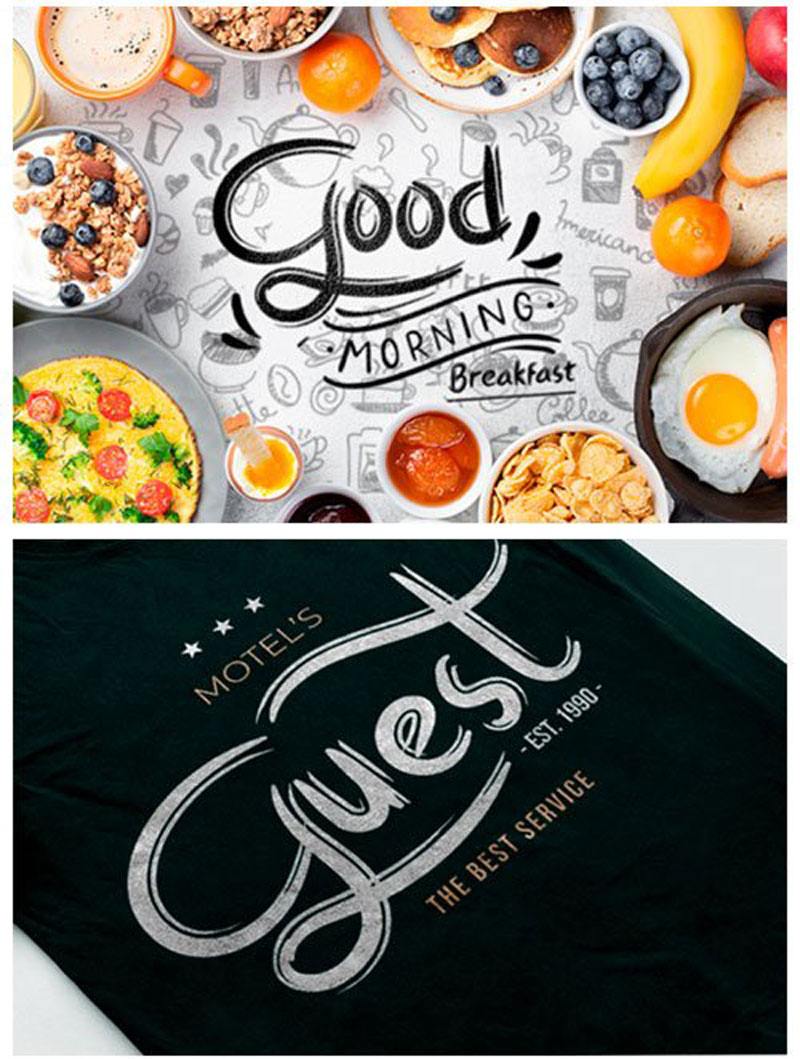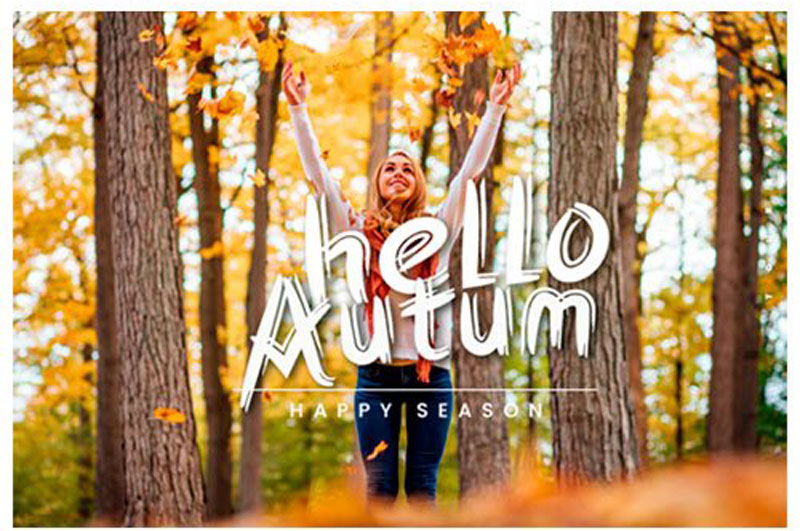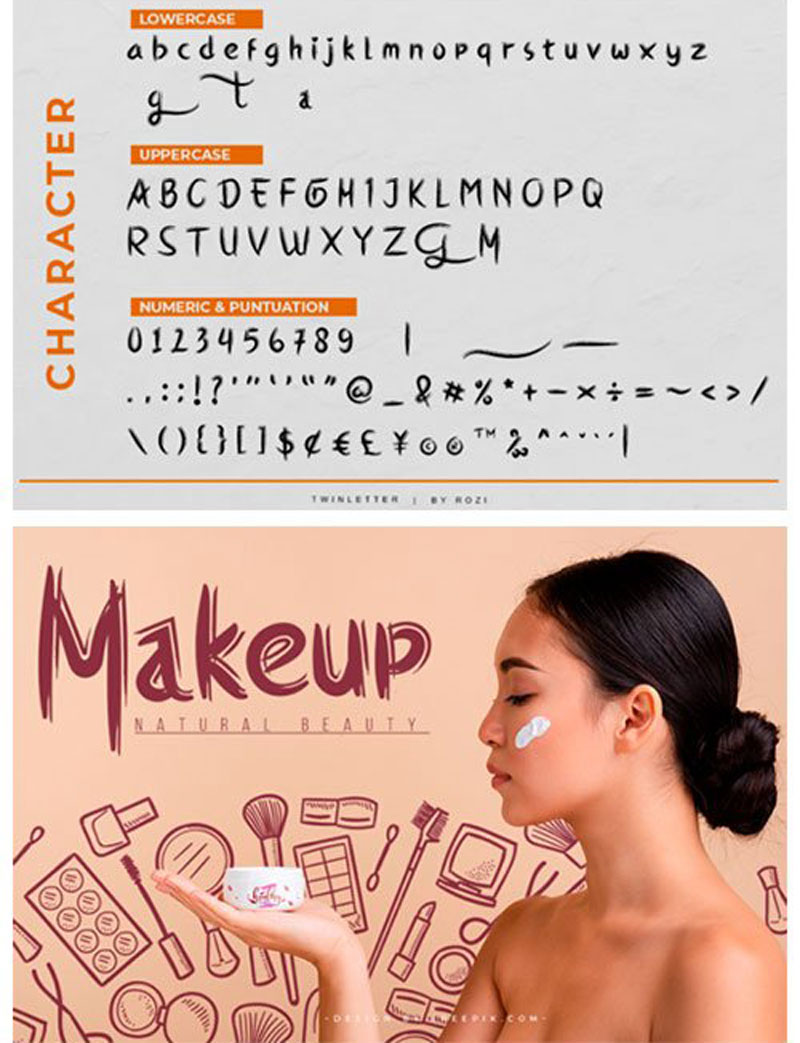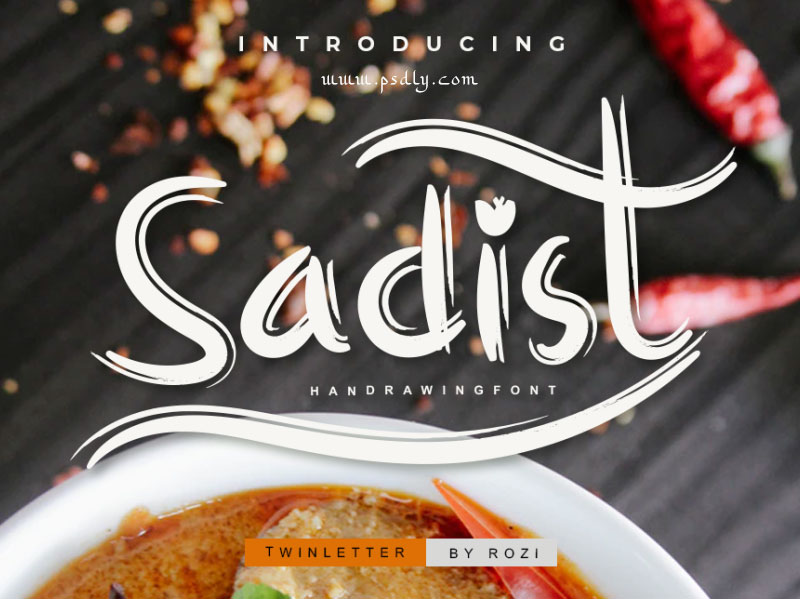
Sadist Font Family
This is the Sadist font, this font is made by hand touch with a relaxed and friendly feel. This font is made for various needs and to be combined with various other font types. You can create a relaxed, elegant and casual and serious design with this font
The san serif typeface in this font is also suitable for book titles, films, covers, paragraph content, logos, posters, calligraphy, cloth and more. also checkout Khodijah Font Family